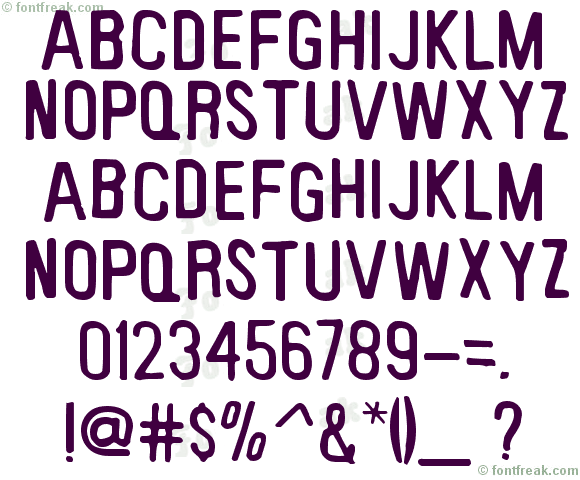
Keyboard Plaque
About Keyboard Plaque
Keyboard Plaque by Channelzero! is an intriguing display font that blends a unique artistic flair with a contemporary edge. Designed in 1998 by Andi Jones, this shareware font captures attention with its distinctive, almost playful character. The font exhibits a bold stroke weight that offers a strong visual presence, while its slightly irregular shapes add a layer of personality and charm. The spacing is well-considered, ensuring legibility even in larger sizes, making it ideal for eye-catching designs.
The visual characteristics of Keyboard Plaque are marked by rounded edges and a quirky, informal style that evokes a sense of creativity. This makes it particularly suitable for a variety of use cases, such as promotional graphics for tech events, vibrant restaurant menus, and engaging movie posters that aim to attract a youthful audience. Additionally, it can be a great choice for websites or social media graphics that require a modern, casual look, appealing to content creators and graphic designers alike.
The target audience for Keyboard Plaque includes graphic designers who seek to make a statement with their work, small business owners looking for distinctive branding elements, and anyone involved in creative projects that benefit from a unique typographic style. This font’s playful design and bold presence make it a versatile choice for various applications.
What truly sets Keyboard Plaque apart is its ability to convey personality and creativity while remaining functional. Its distinctive aesthetic is perfect for those who want to stand out in a crowded visual landscape. For those interested in enhancing their design toolbox, the Keyboard Plaque font free download offers an exciting opportunity to incorporate this unique typeface into their projects, ensuring they create something memorable and impactful.